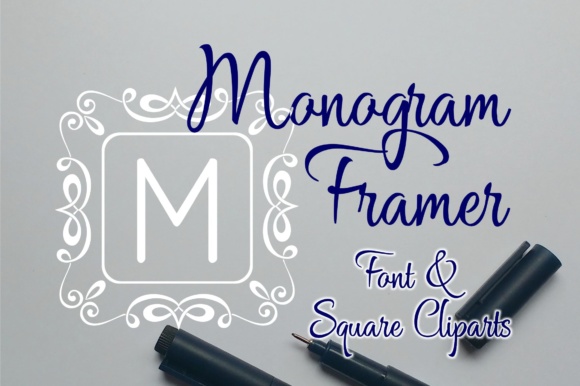
Adorn your designs with the exquisite charm of Square Monogram Framer, a decorative font family crafted by the renowned Digital Typeface Studio. Unleash your creativity and effortlessly craft captivating monograms in just two simple steps. Embark on a typographic journey like no other, where letters and numbers harmoniously blend to form elegant framed monograms.
Step into a world of infinite possibilities, where Square Monogram Framer's versatility knows no bounds. Whether you seek a classic, timeless look or a modern, edgy aesthetic, this font family rises to meet your every desire. Experiment with a myriad of design options, from personalized stationery and wedding invitations to eye-catching social media graphics and website headers.
Indulge in the intricate details and impeccable craftsmanship that define each letterform. The carefully designed frames, adorned with delicate flourishes and intricate embellishments, add a touch of sophistication and elegance to your creations. Let your imagination soar as you explore the endless possibilities, transforming ordinary words into captivating works of art.
With Square Monogram Framer, the power of customization lies at your fingertips. Select from a range of numerals, letting each number guide you to a unique frame design. Combine letters and numbers seamlessly, creating monograms that reflect your personal style and taste.
Embark on a creative adventure with Square Monogram Framer, where the mundane transforms into the magnificent. Embrace the beauty of monograms and elevate your designs to new heights. Let your creativity flourish as you craft stunning visuals that leave a lasting impression.